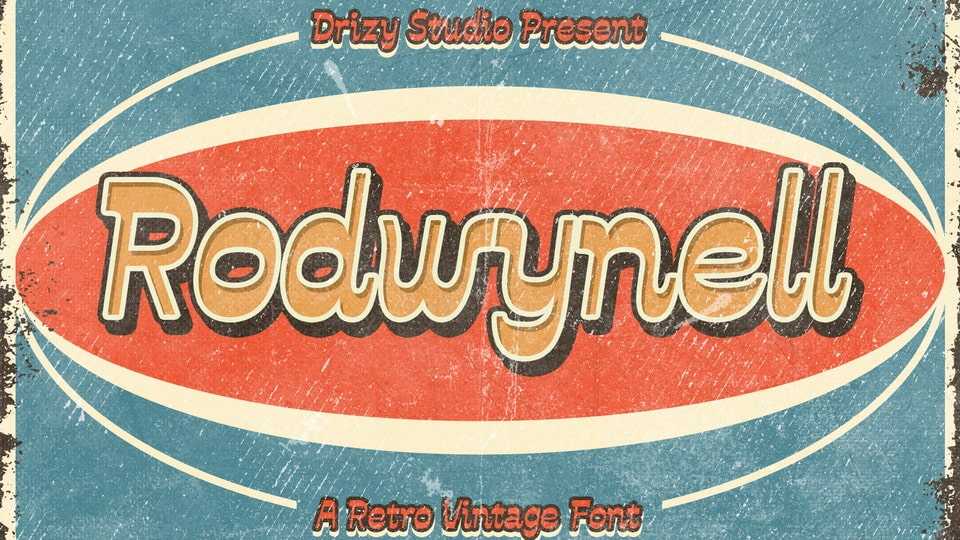
Download Rodwynell font, a retro vintage typeface offering all the styles you need for your projects. This is a unique typeface perfect for creating gorgeous logos and posters.
Designer: Drizy Studio